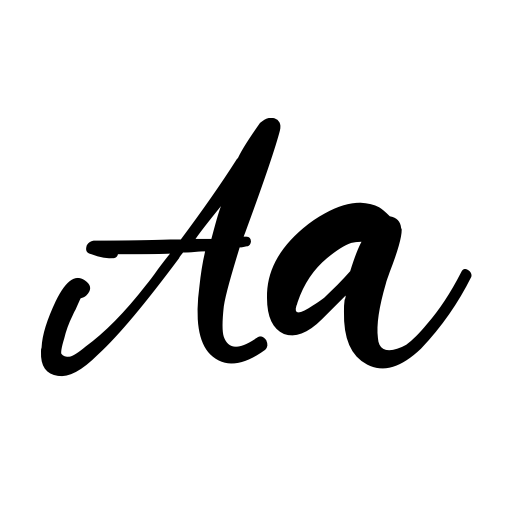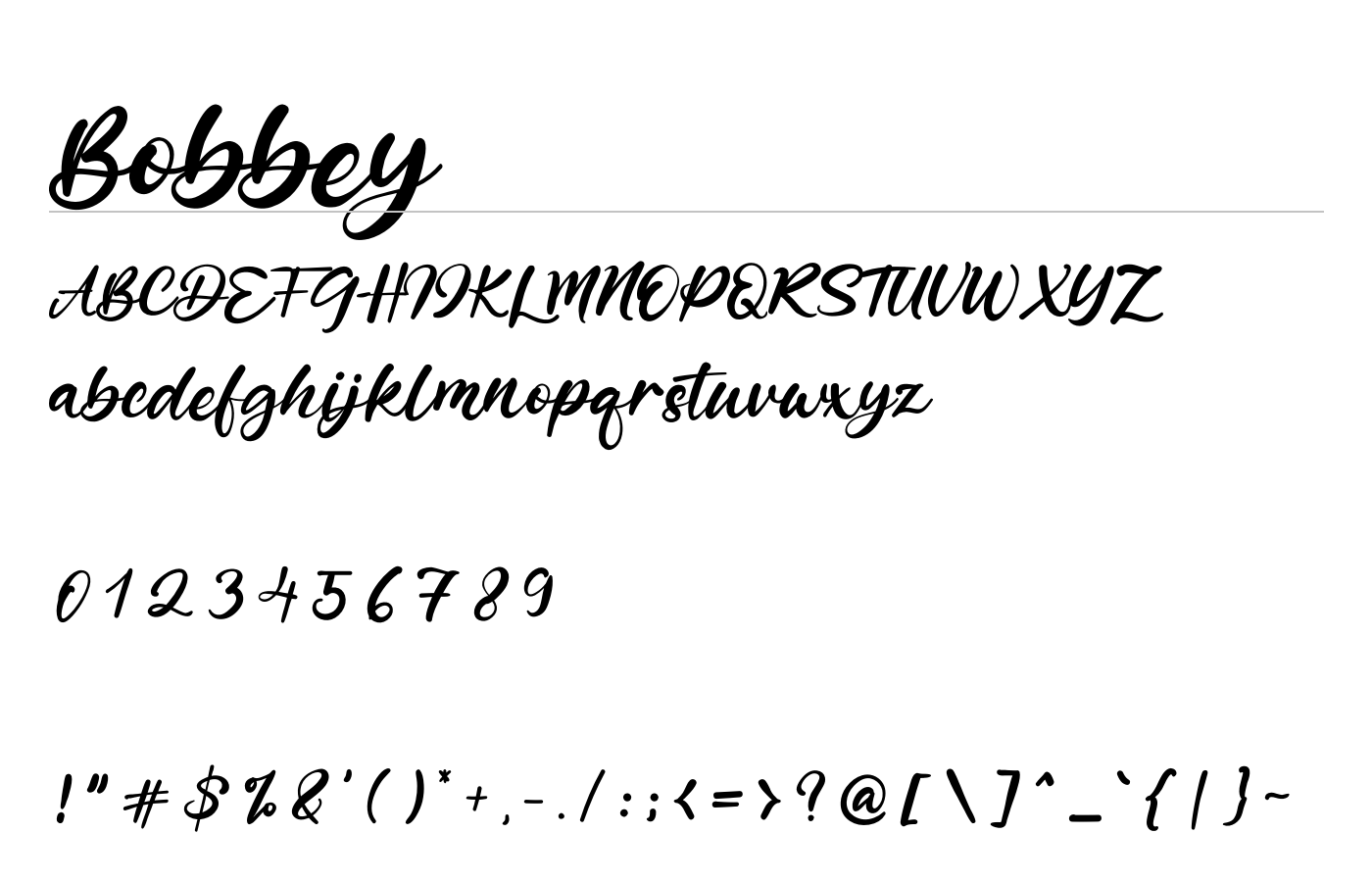
Bobbey is a lively and elegant script font with smooth, flowing strokes that mimic natural handwriting. Its medium weight and moderate contrast create a balanced, friendly appearance, making it ideal for personal branding, invitations, and creative projects where a warm, approachable style is desired. The font’s unique letter shapes and playful curves add charm and personality, enhancing designs that seek a casual yet refined touch.
Bobbey Font
About Bobbey Font